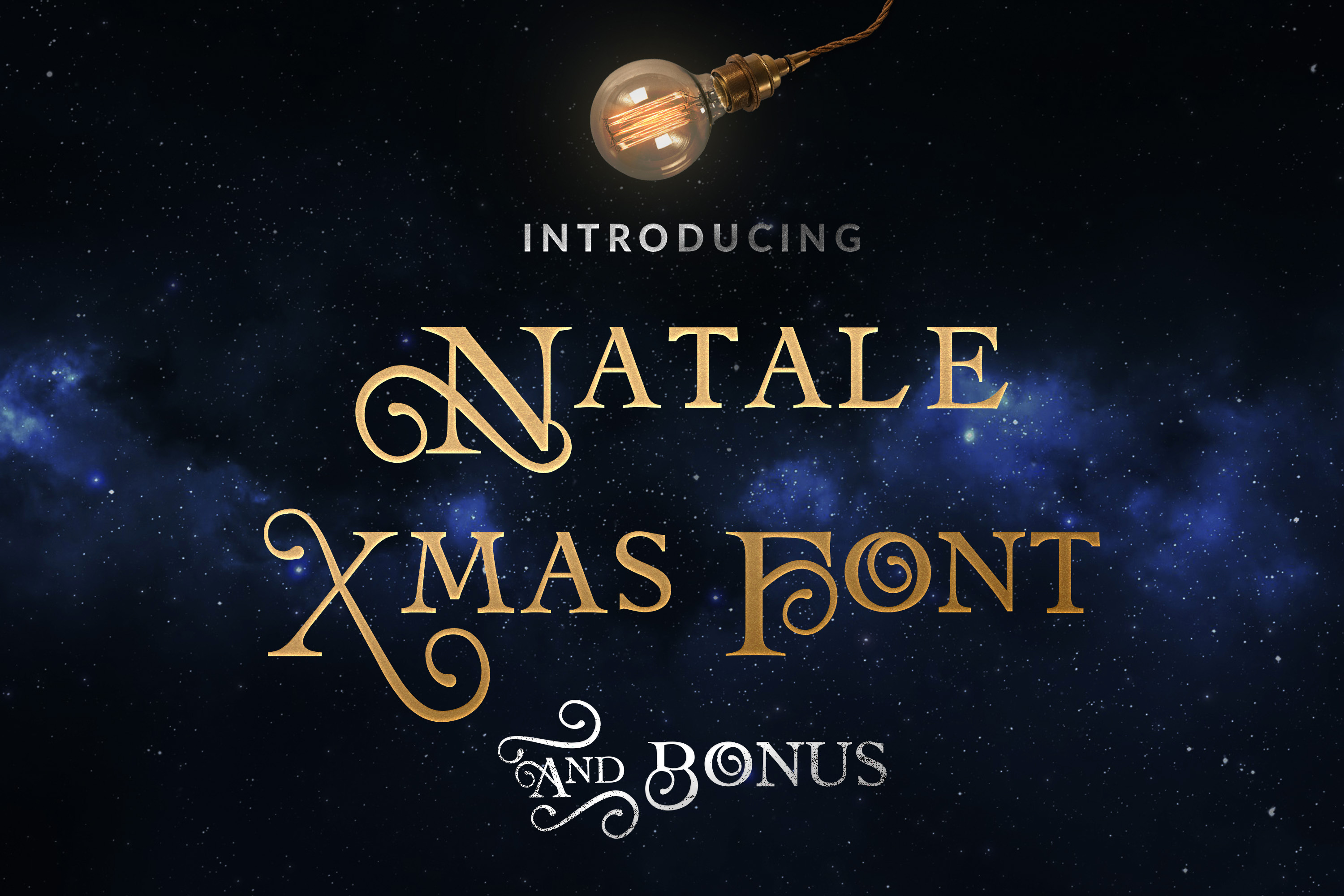
Natale Christmas Font & Bonus Gift
I have the pleasure to Introduce you ☆☆☆ Natale Christmas Font ☆☆☆
Natale is a hand crafted typeface, created specially for the Christmas Spirit. :D You can use this Christmas font for for commercial use as extended License it's included.
Swashes included